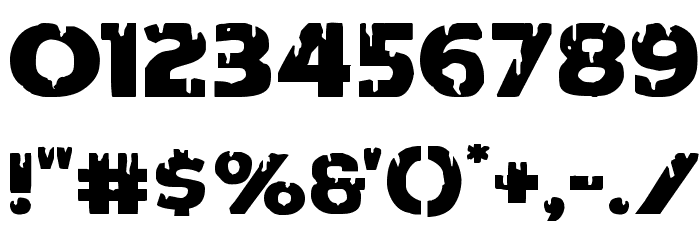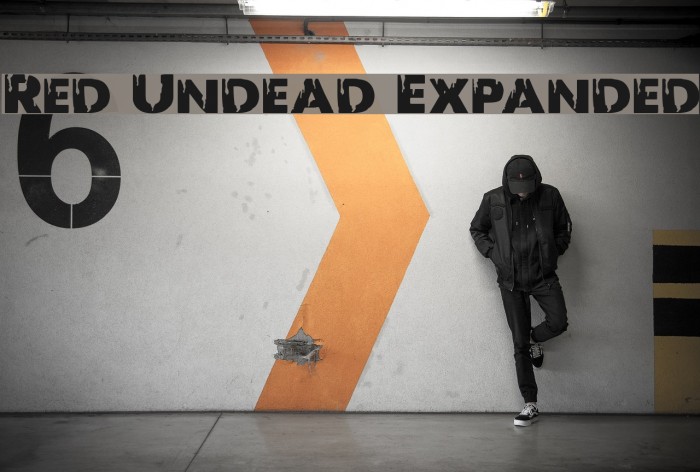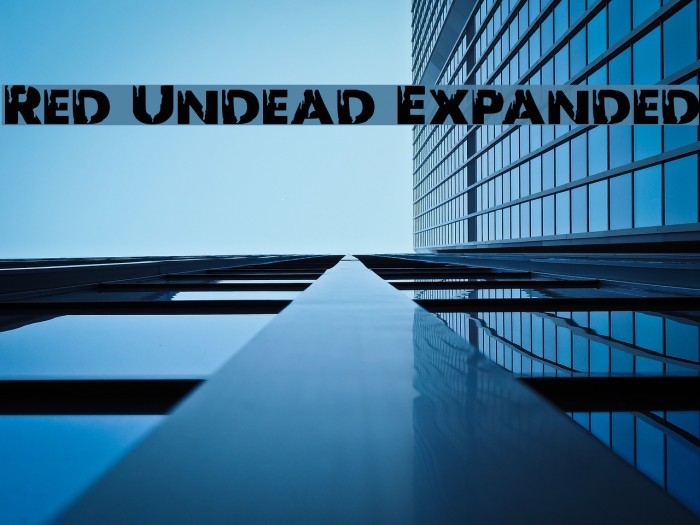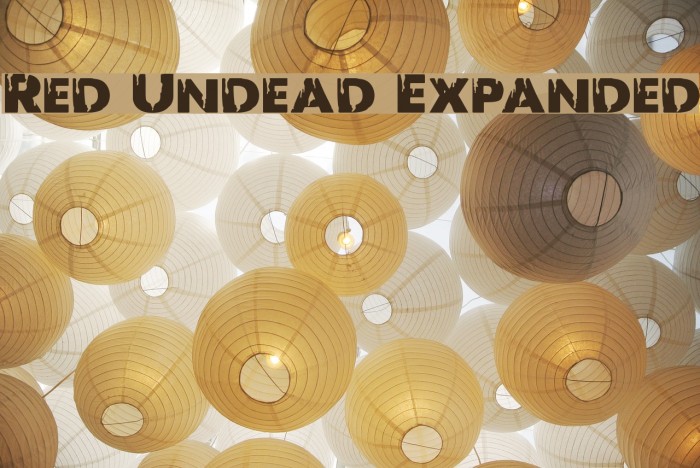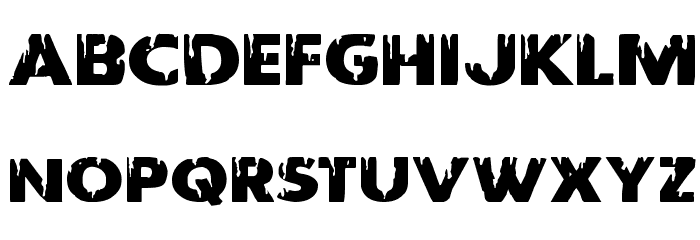
Red Undead Expanded Font
Red Undead Expanded Description
This font features a bold and distressed style, characterized by its rough, jagged edges and uneven texture. The letters appear as if they have been eroded or decayed, giving them a gritty, worn-out look. This design choice adds a sense of ruggedness and intensity, making it ideal for projects that require a strong, impactful visual presence. The uppercase and lowercase letters maintain a consistent style, with numbers and special characters following the same distressed theme. The overall appearance is both bold and eye-catching, suitable for creating a dramatic effect.
A bold, distressed font with a rugged, eroded appearance.
- Proposed Projects: Ideal for horror-themed posters, video game titles, Halloween event flyers, or any project requiring a gritty, intense aesthetic.